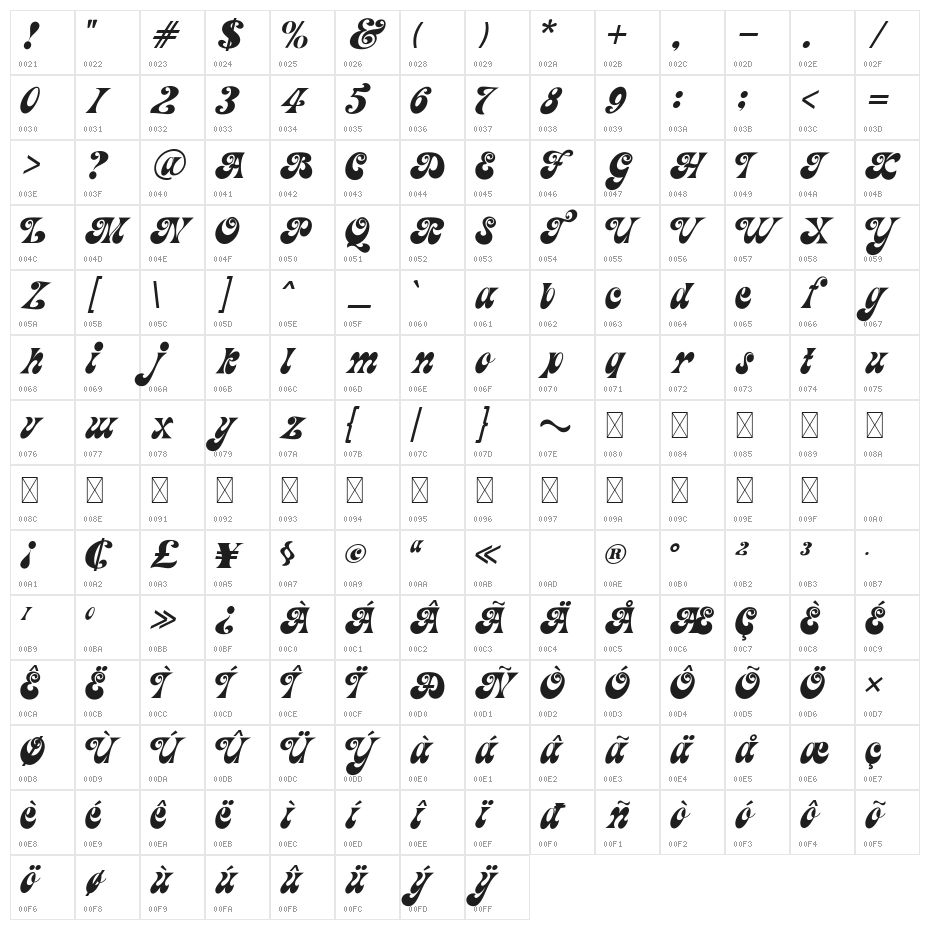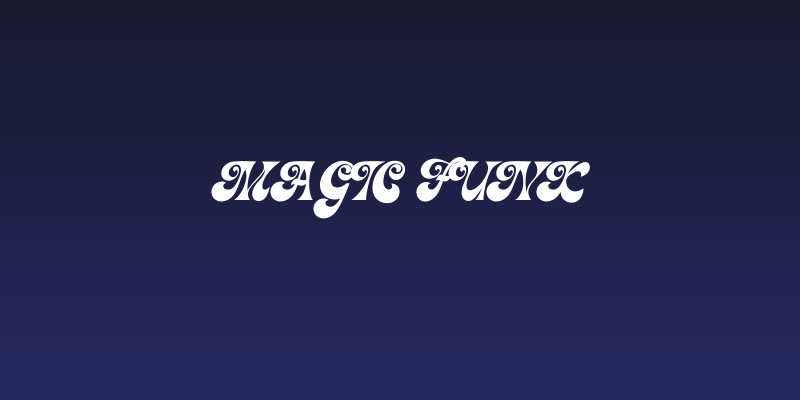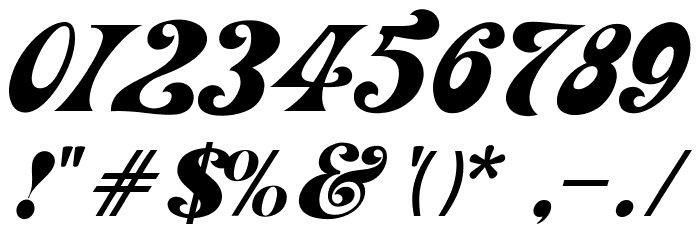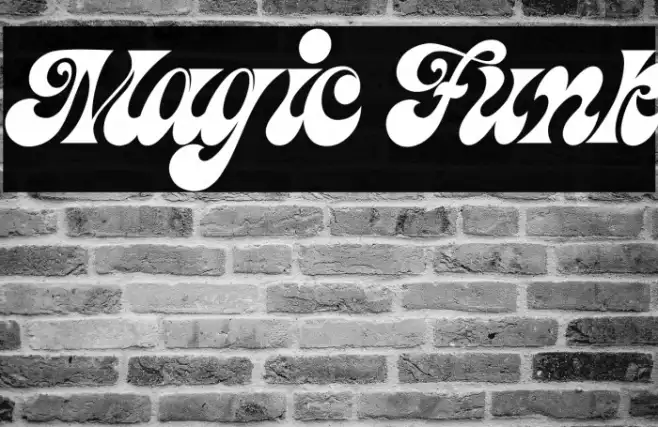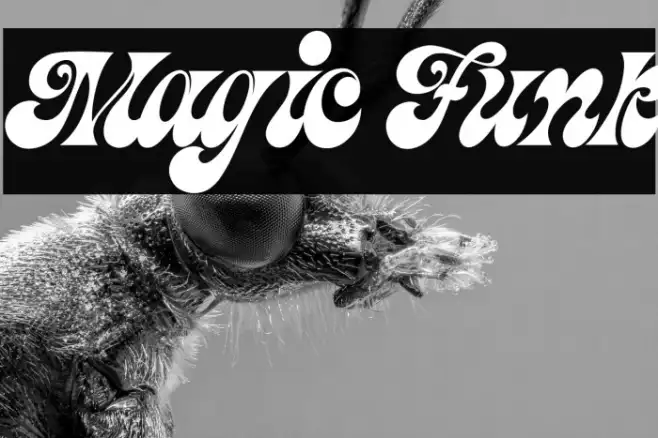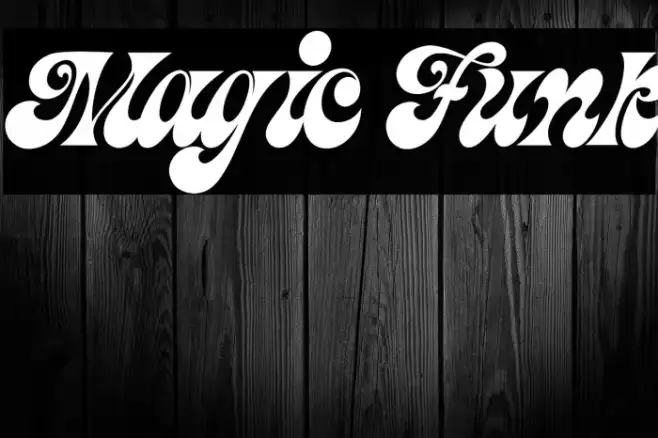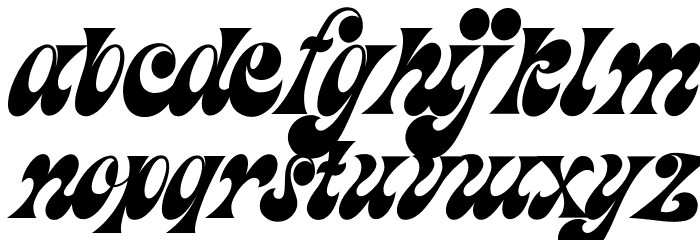
Magic Funk Font
Magic Funk Description
This font features a bold and playful design with a strong retro vibe. The characters are highly stylized, with exaggerated curves and swirls that give it a funky, dynamic appearance. The uppercase letters are particularly ornate, with some characters incorporating unique loops and flourishes. The lowercase letters maintain a similar style, ensuring consistency throughout the typeface. Numbers and special characters are equally bold and decorative, making this font suitable for eye-catching designs. The overall aesthetic is reminiscent of 1970s design, with a modern twist that makes it versatile for various creative projects.
| Overall Style | Retro, Funky, Decorative |
| Proposed Projects | Ideal for poster designs, album covers, branding projects, and any creative work that requires a bold, eye-catching typeface. |